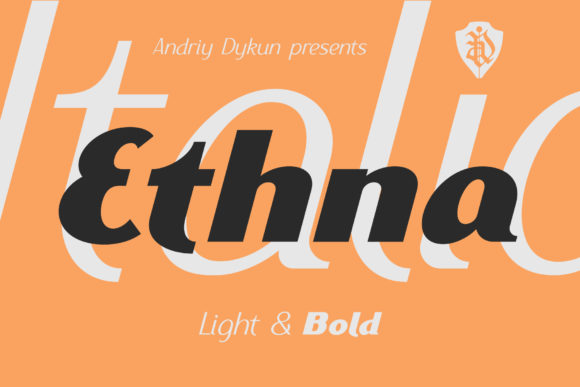
Immerse yourself in the world of Ethna Font - a sans-serif masterpiece that captures the essence of contemporary and vintage aesthetics. This remarkable font exudes elegance with its bold italics, leading the way in expressing your creative vision. From captivating logos that leave a lasting impression to vibrant captions that ignite engagement, Ethna Font is your ultimate tool for visual storytelling.
Crafted by the visionary NREY, Ethna Font is not just another font; it's an experience. The Light Italic style brings a touch of grace and sophistication to your designs, making every word dance with beauty. Its charm is undeniable, turning ordinary text into captivating narratives that draw readers in. Whether used as standalone words or in extensive text blocks, Ethna Font commands attention.
Unleash your creativity with this font that effortlessly blends the allure of the past with the boldness of the present. Ethna Font is versatile, making it the perfect companion for various projects. Its versatility is boundless - from captivating headlines that grab attention to intriguing body copy that keeps your audience enthralled. With Ethna Font, your designs are destined for greatness.